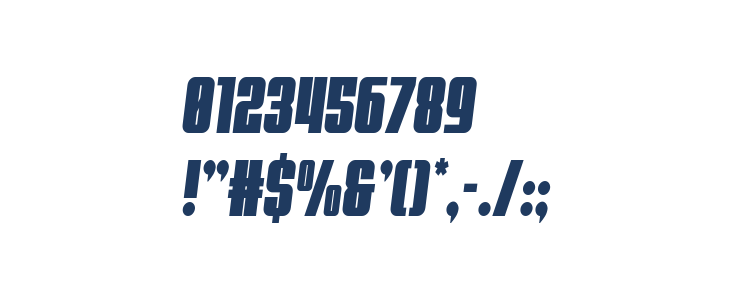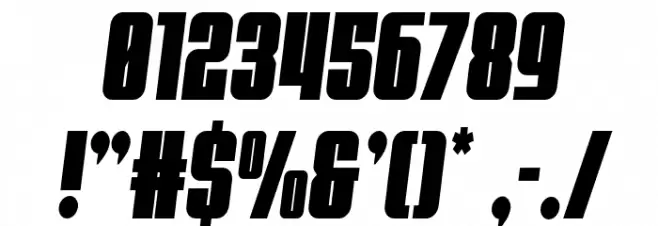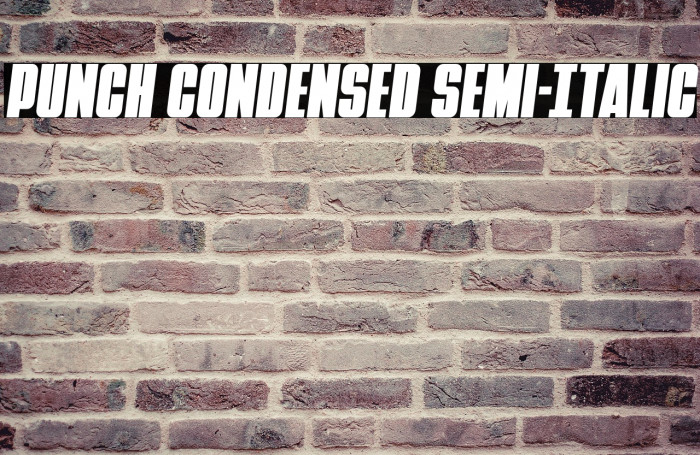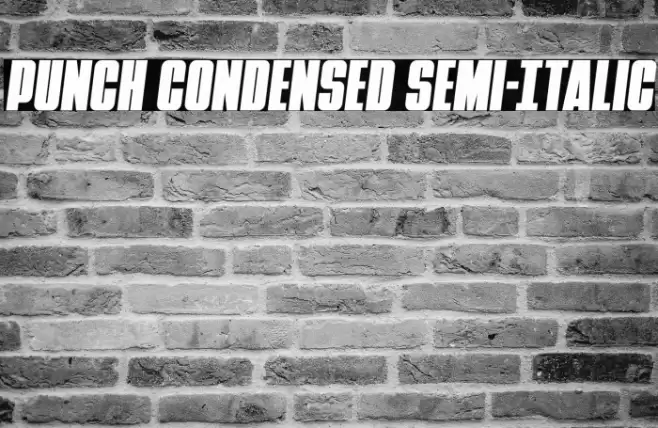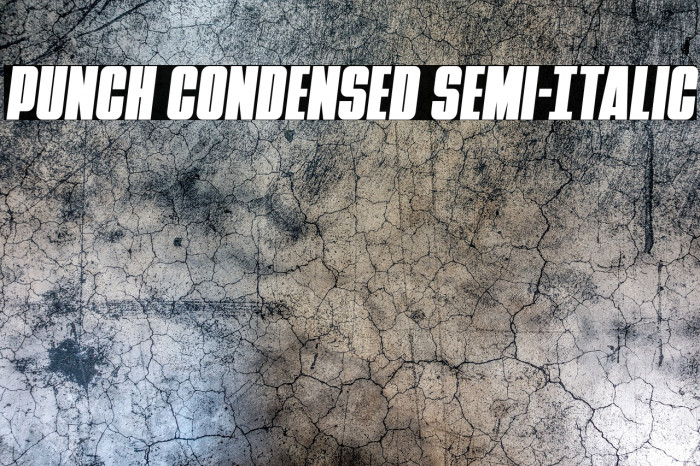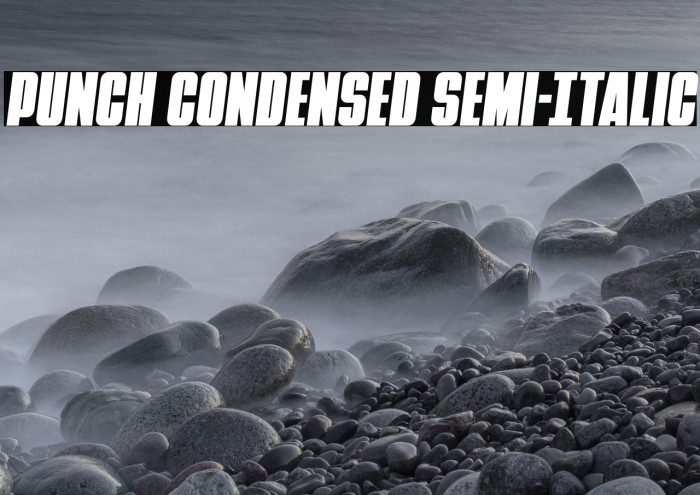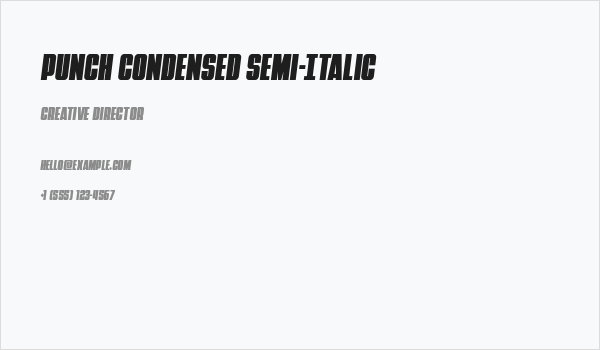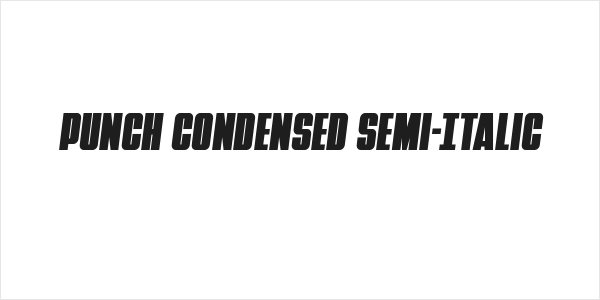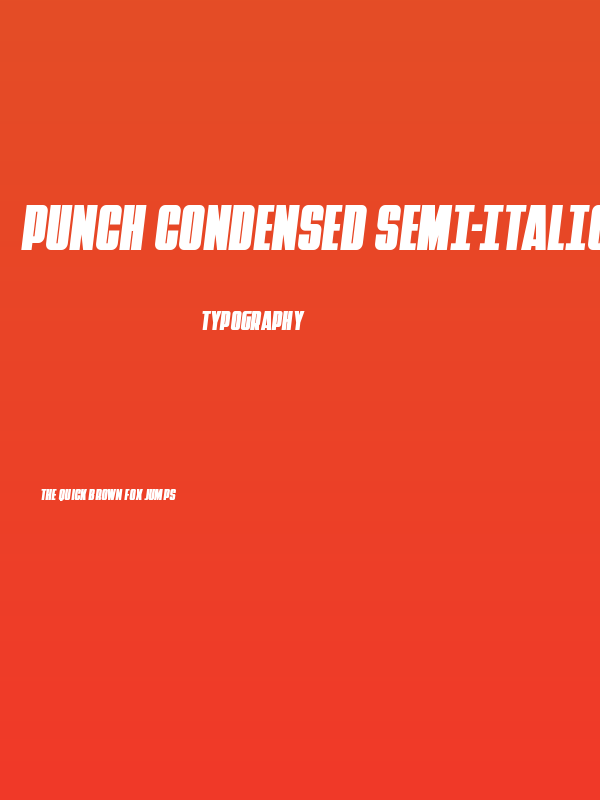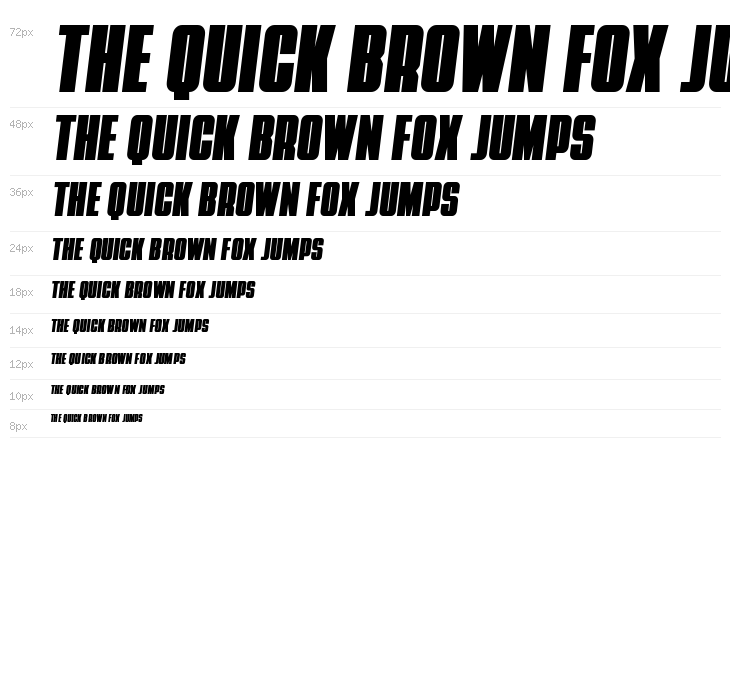
Punch Condensed Semi-Italic Font
Punch Condensed Semi-Italic Description
This font features a bold and impactful design with a condensed width and semi-italic style. The uppercase and lowercase letters are designed with a strong presence, making them suitable for attention-grabbing headlines. The numbers and special characters maintain the same boldness and condensed style, ensuring consistency across all text elements. The semi-italic slant adds a dynamic feel, enhancing its modern appeal. The font's thick strokes and tight character spacing contribute to its powerful and assertive look, making it ideal for projects that require a strong visual impact.
| Proposed Projects | Ideal for posters, headlines, branding, and advertising where a bold statement is needed. |